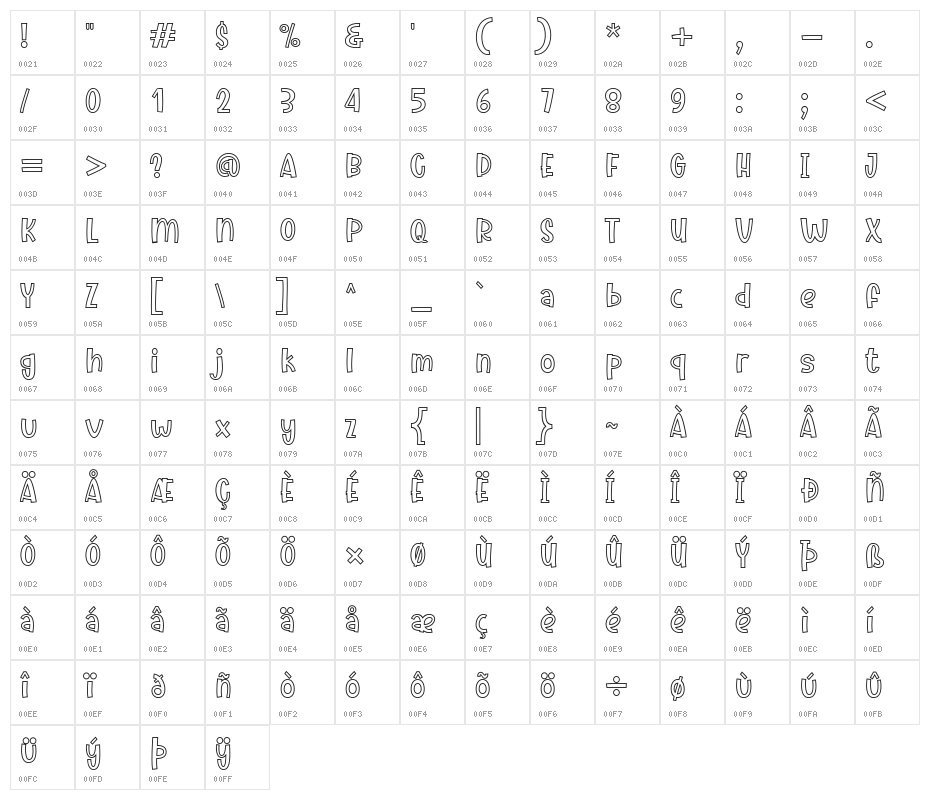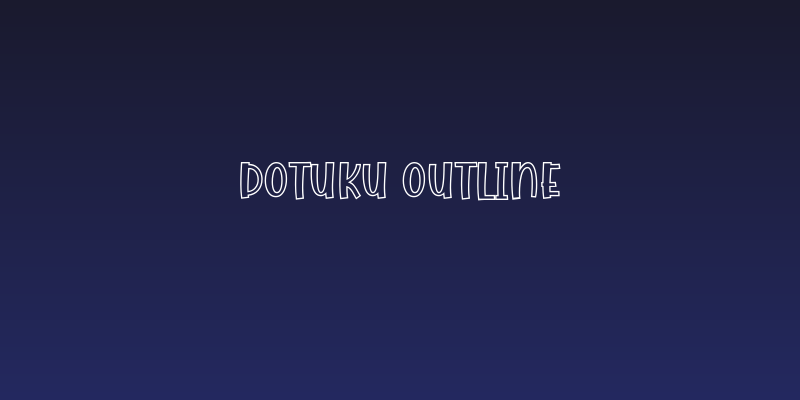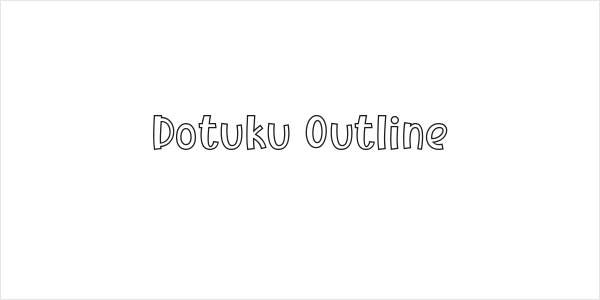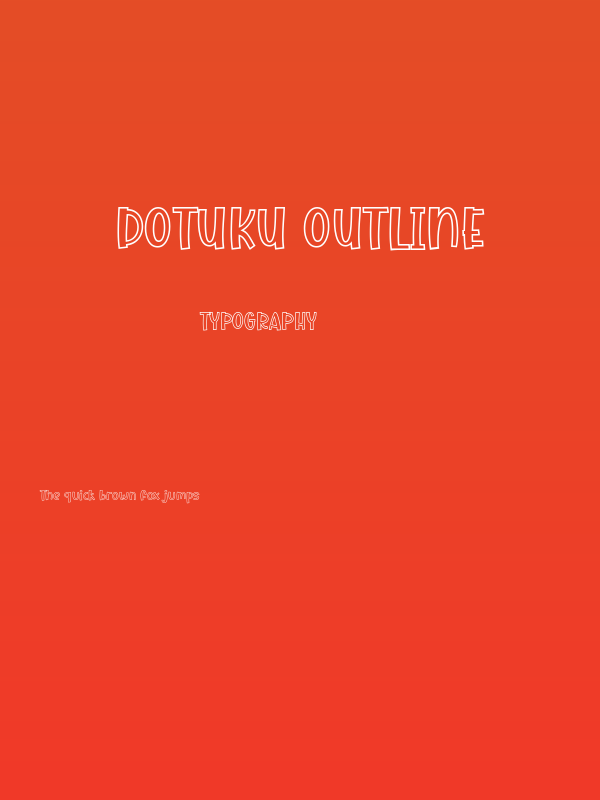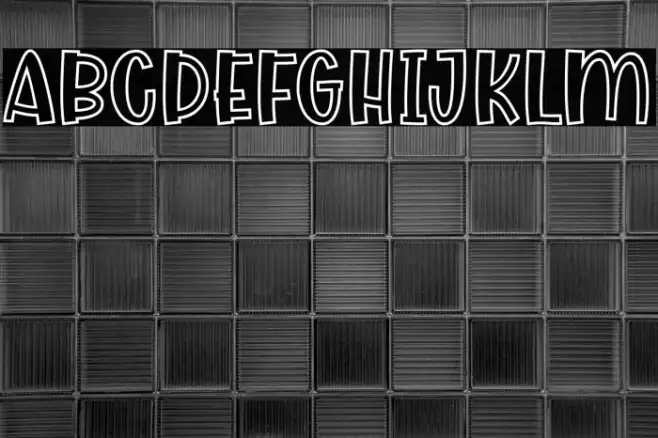
Dotuku Outline Font
Dotuku Outline Description
This playful and whimsical font features an outline style that gives it a unique, hand-drawn appearance. The characters are bold and slightly irregular, adding to their charm and making them stand out. The uppercase and lowercase letters maintain a consistent style, with rounded edges and a casual feel. Numbers and special characters are also included, each maintaining the same outlined, playful aesthetic. This font is perfect for projects that require a fun and informal touch, such as children's books, party invitations, or creative posters.
| Overall Style | Whimsical, Playful |
| Proposed Projects | Ideal for children's books, party invitations, creative posters, and playful branding. |